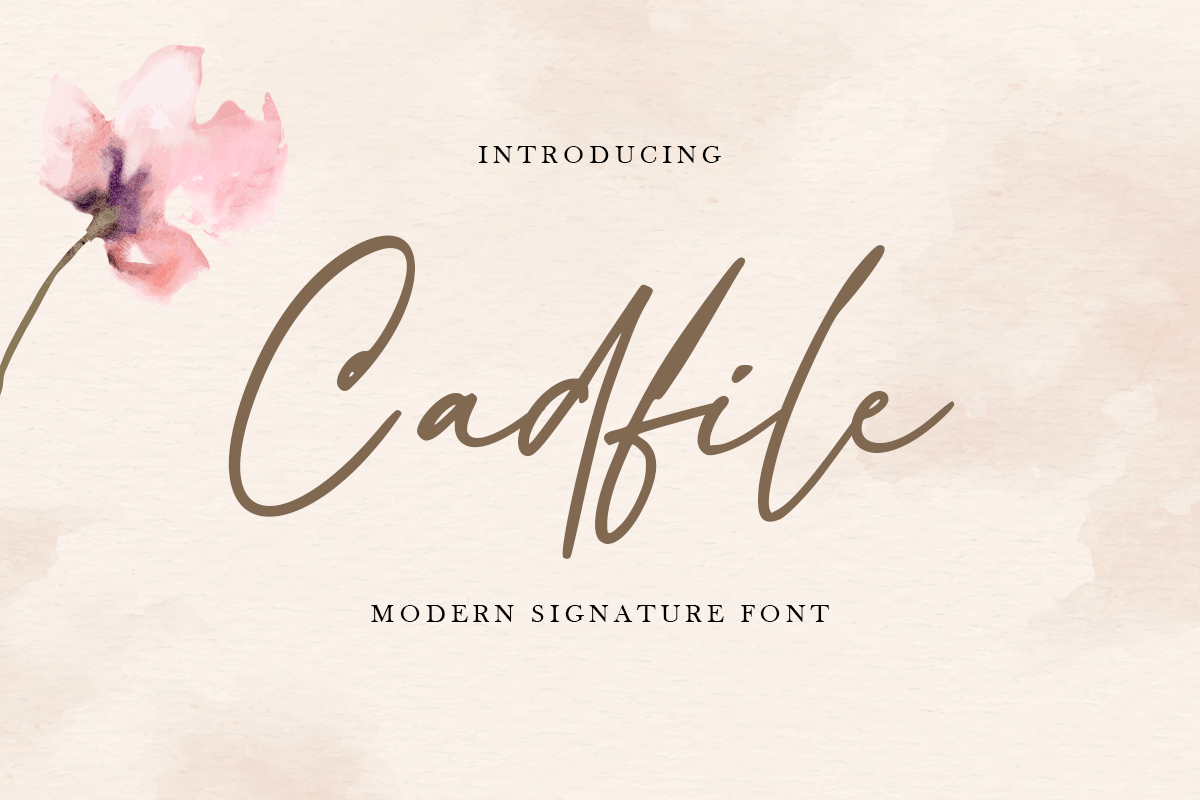
Cadfile
-Modern Signature Font
Cadfile
Cadfile is a Modern Signature Font with cute and feminine style that inspired from September month. This font specially crafted for your branding, quotes design projects or cute logo, unique, modern for any designs such as print, merchandise, and so many more with easy to use but unique results are so playful and feminine.